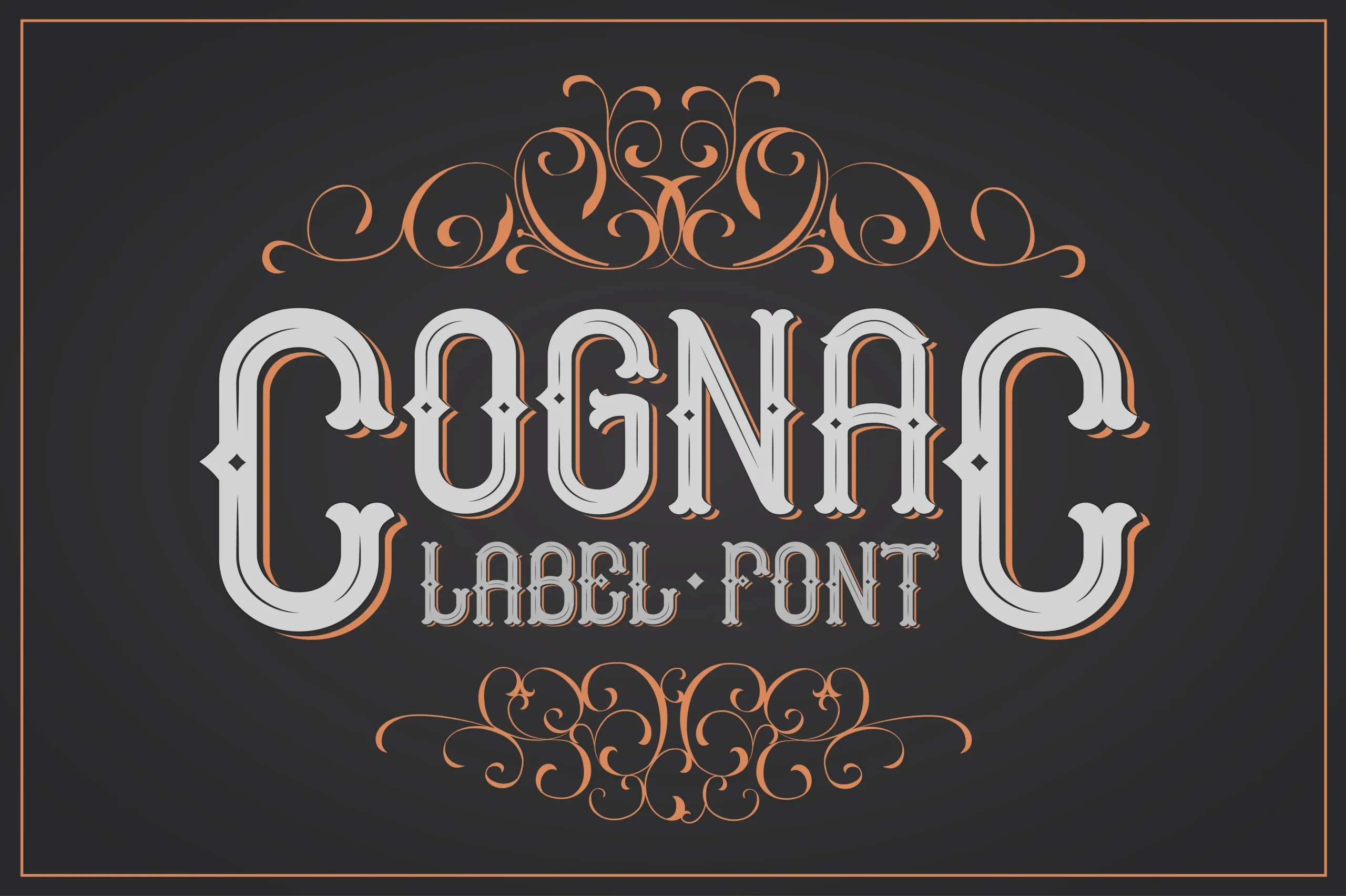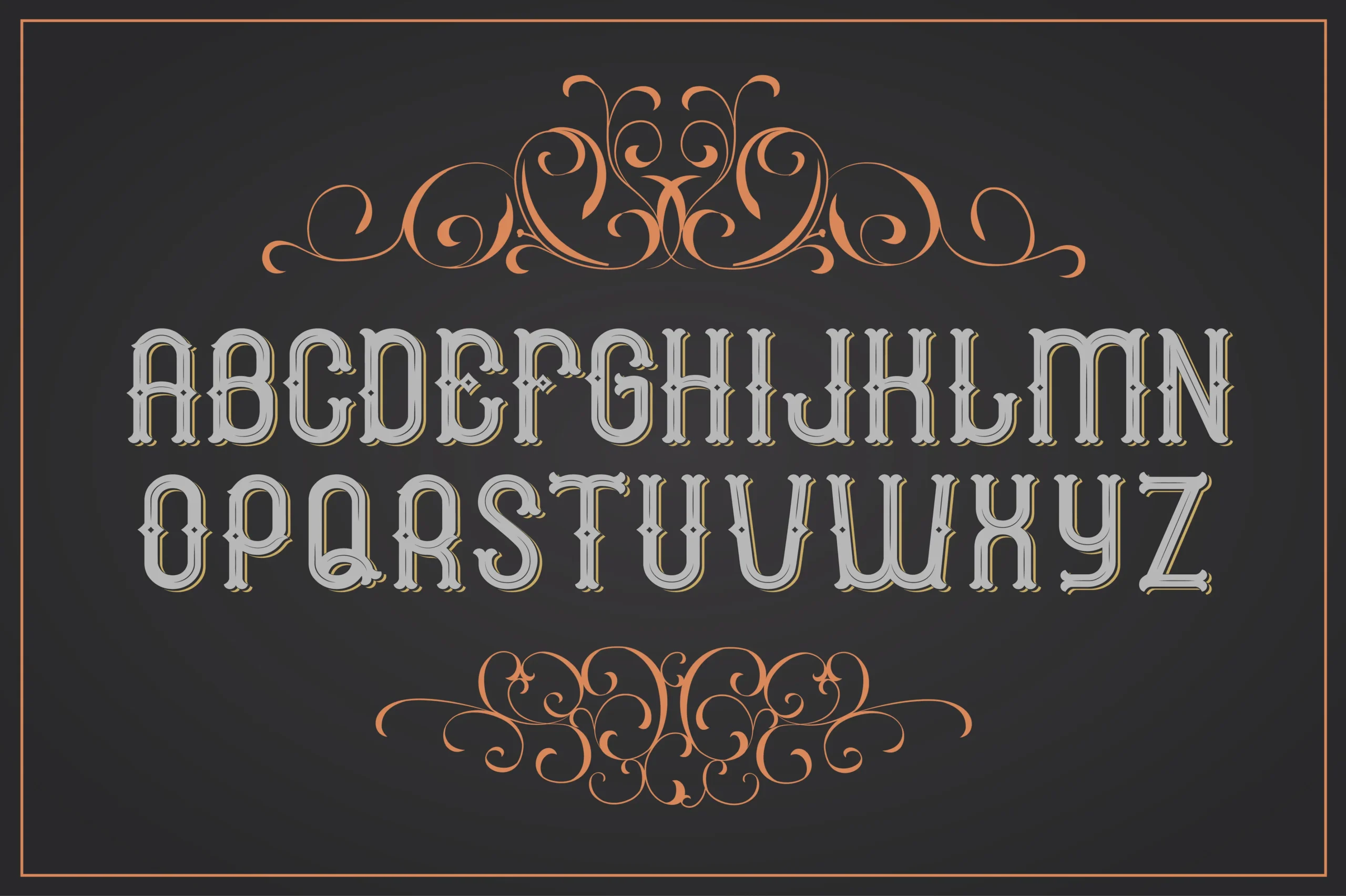
The Cognac Font is a beautifully crafted typeface designed specifically for labels and branding. With its elegant curves and distinctive character, this font adds a touch of sophistication to any project.
- Stylish serif design
- Uppercase and lowercase letters
Ideal for product labels, packaging, branding, and any design project that requires an elegant touch. Make sure to pair it with complementary fonts for a cohesive look.